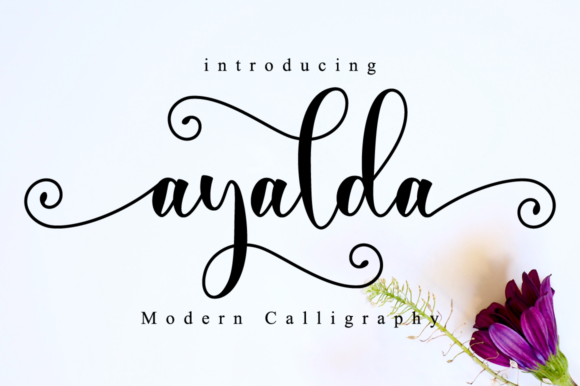
The Designer’s Delight: A Deep Dive into Ayalda Font
I’ll never forget the time I was working on a branding project for a luxury wedding planner. My client wanted a font that exuded elegance, sophistication, and a touch of whimsy. I scoured the internet, tried out countless fonts, but nothing seemed quite right. That was until I stumbled upon Ayalda Font. ✨ It was love at first sight! The beautiful swashes, the flowing script, and the classy vibe instantly won me over. In this article, I’ll share my experience with Ayalda, its features, and how to make the most of this stunning font.
An Honest Review of Ayalda Font
• ✨ Elegant and classy handwritten design
• ✅ Beautiful swashes and flourishes
• 🎨 Highly versatile for various design projects
• 👍 Easy to read and understand
While Ayalda is an amazing font, there are a few things to keep in mind: 🤔
• ⚠️ Some swashes might not work well in smaller font sizes
• ⚠️ Limited availability of certain characters
The Story Behind Ayalda Font
Ayalda Font was designed with the intention of creating a beautiful, elegant script font that would inspire designers and creatives. The designer aimed to craft a font that would be both classy and whimsical, perfect for a range of design projects. While the exact story behind Ayalda may be unknown, its stunning design and versatility have made it a favorite among designers.
Q: What type of projects is Ayalda Font best suited for?
A: Ayalda Font is perfect for luxury branding, wedding designs, high-end marketing materials, and any project that requires an elegant, sophisticated touch.
Q: Is Ayalda Font suitable for body text?
A: While Ayalda Font is beautiful, it may not be the best choice for body text due to its script nature. However, it can work well for headings, titles, or quotes.